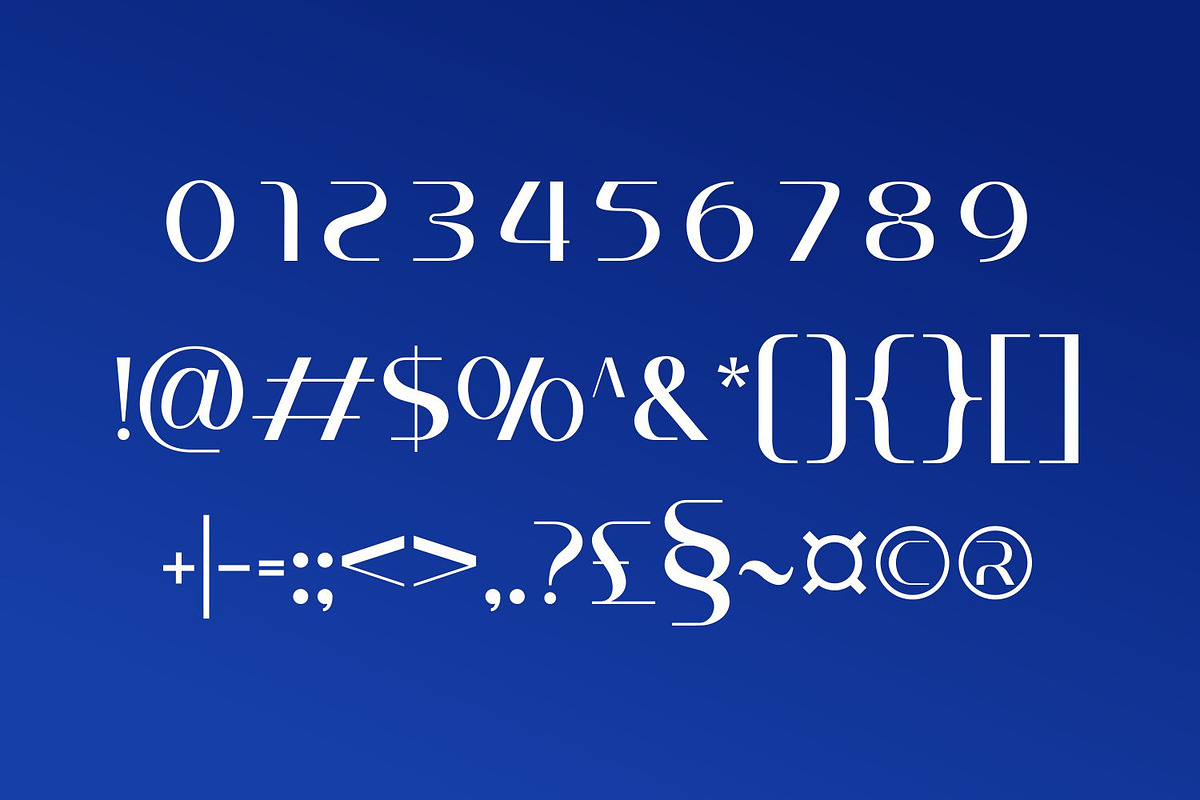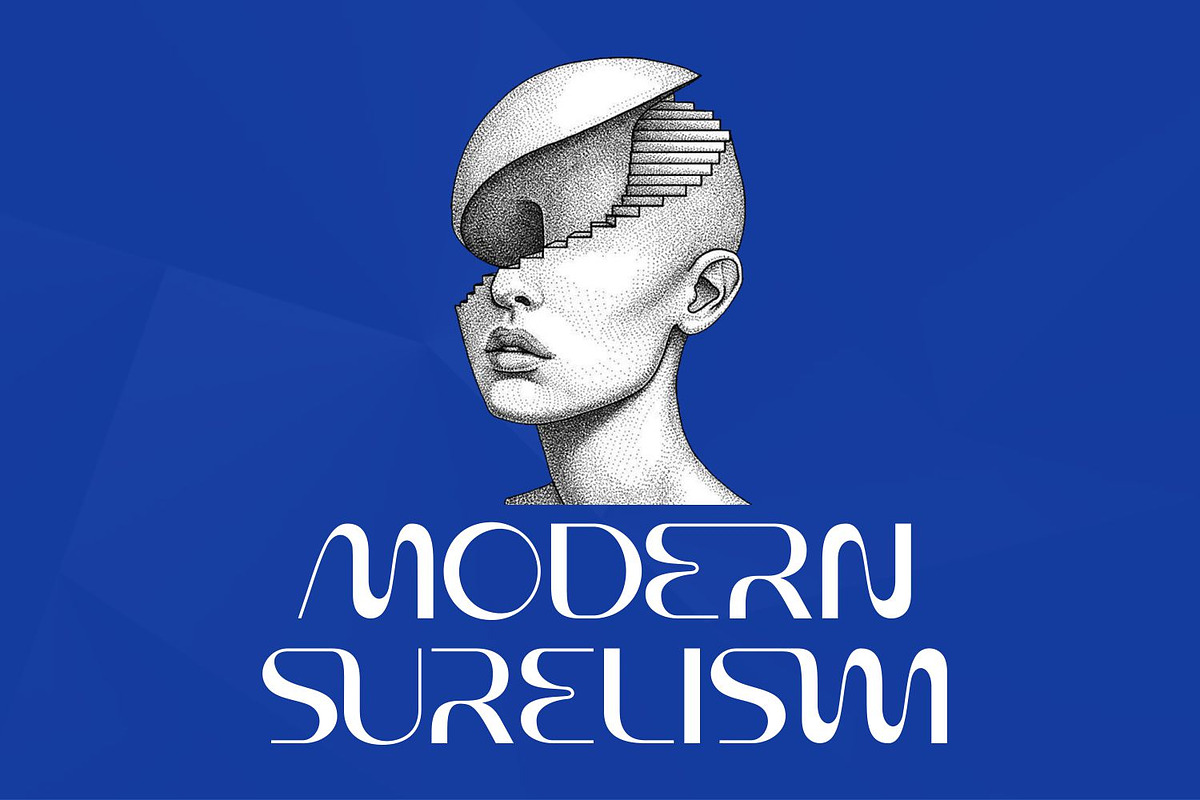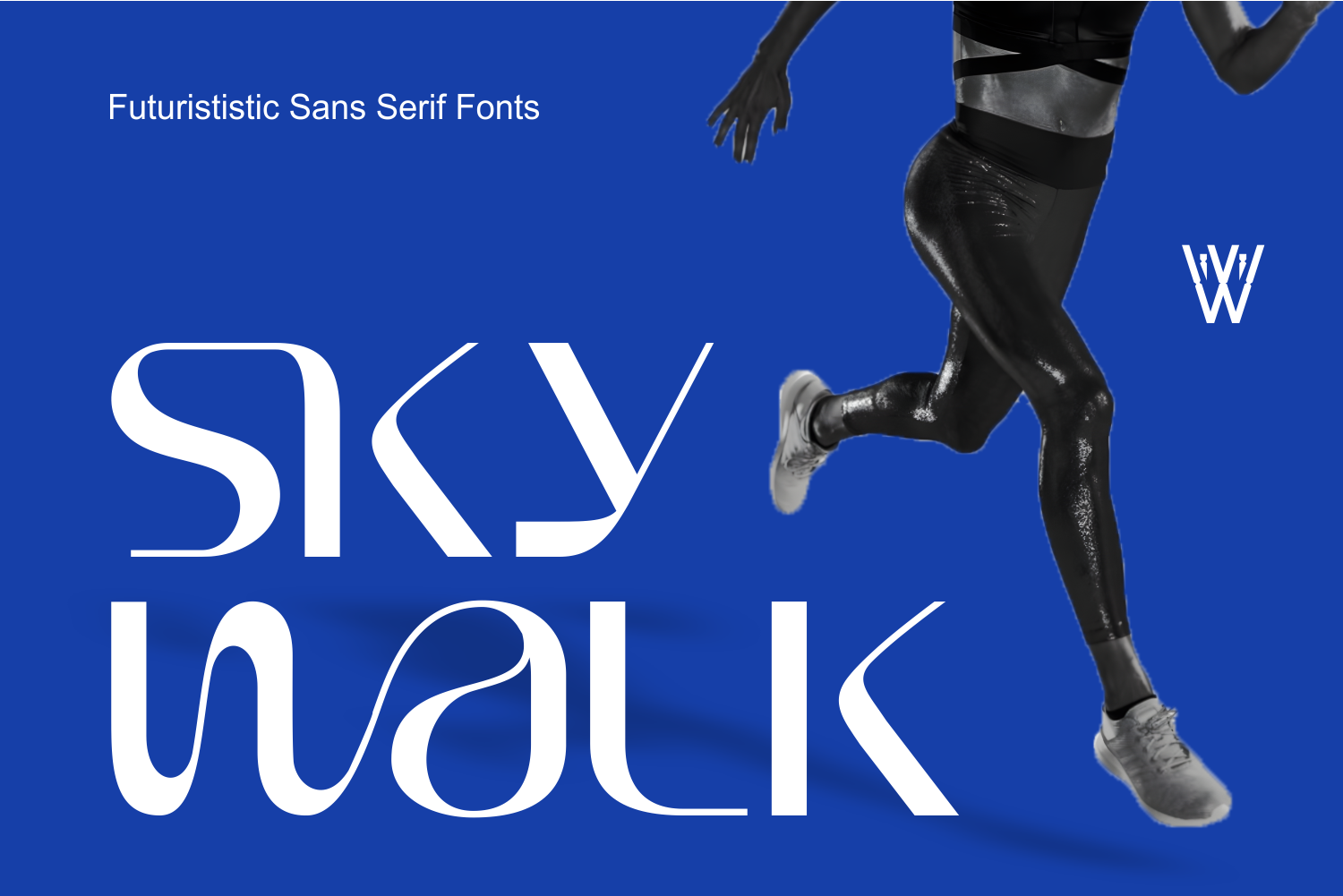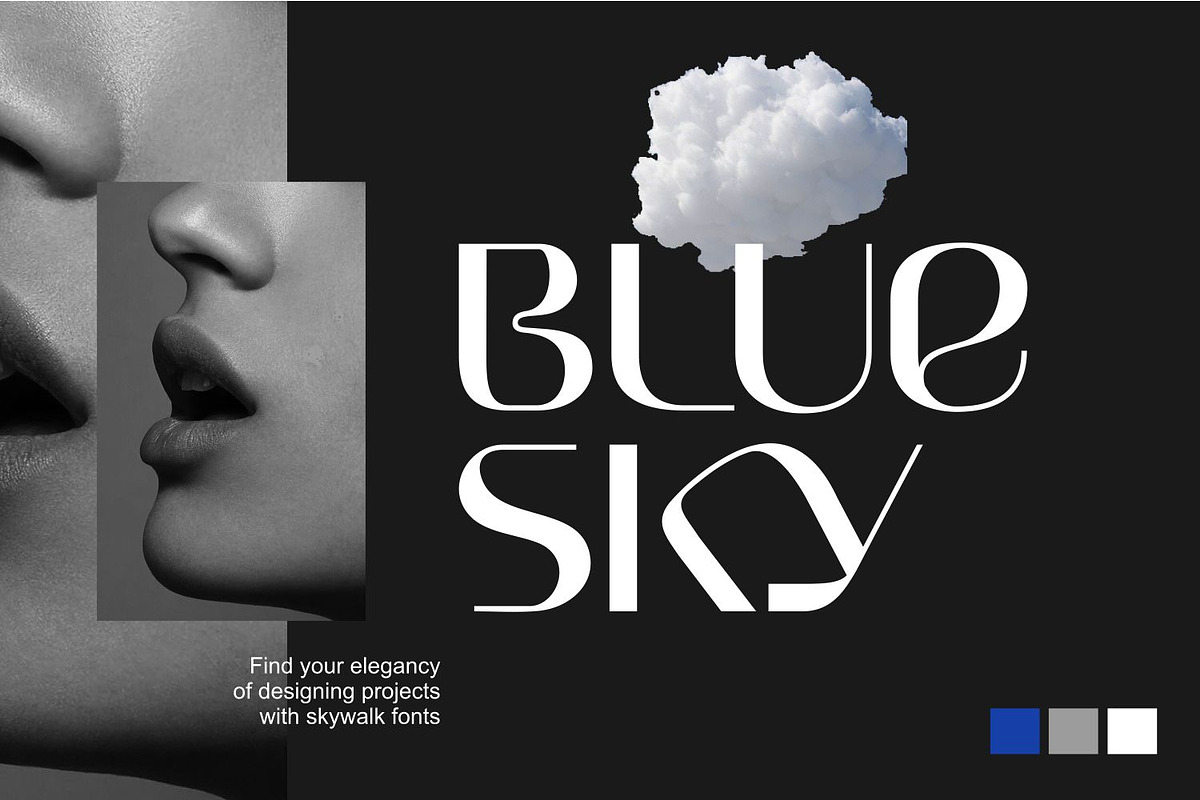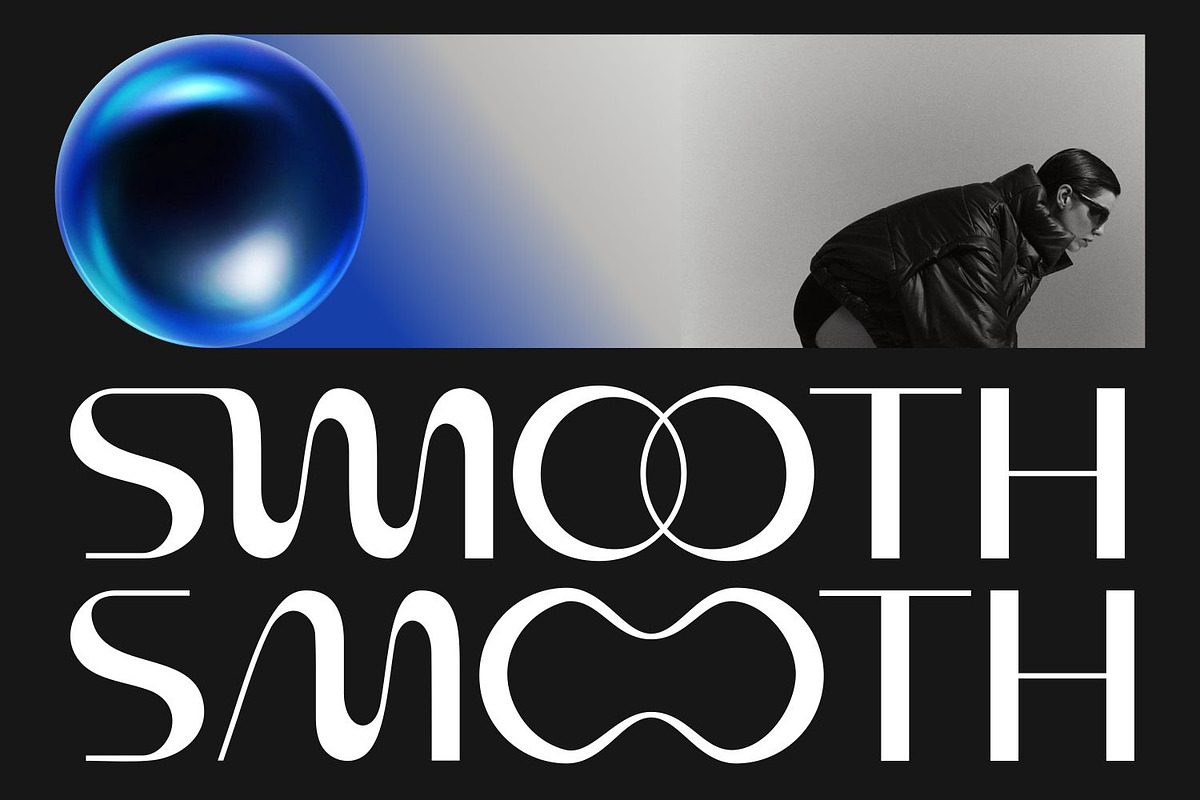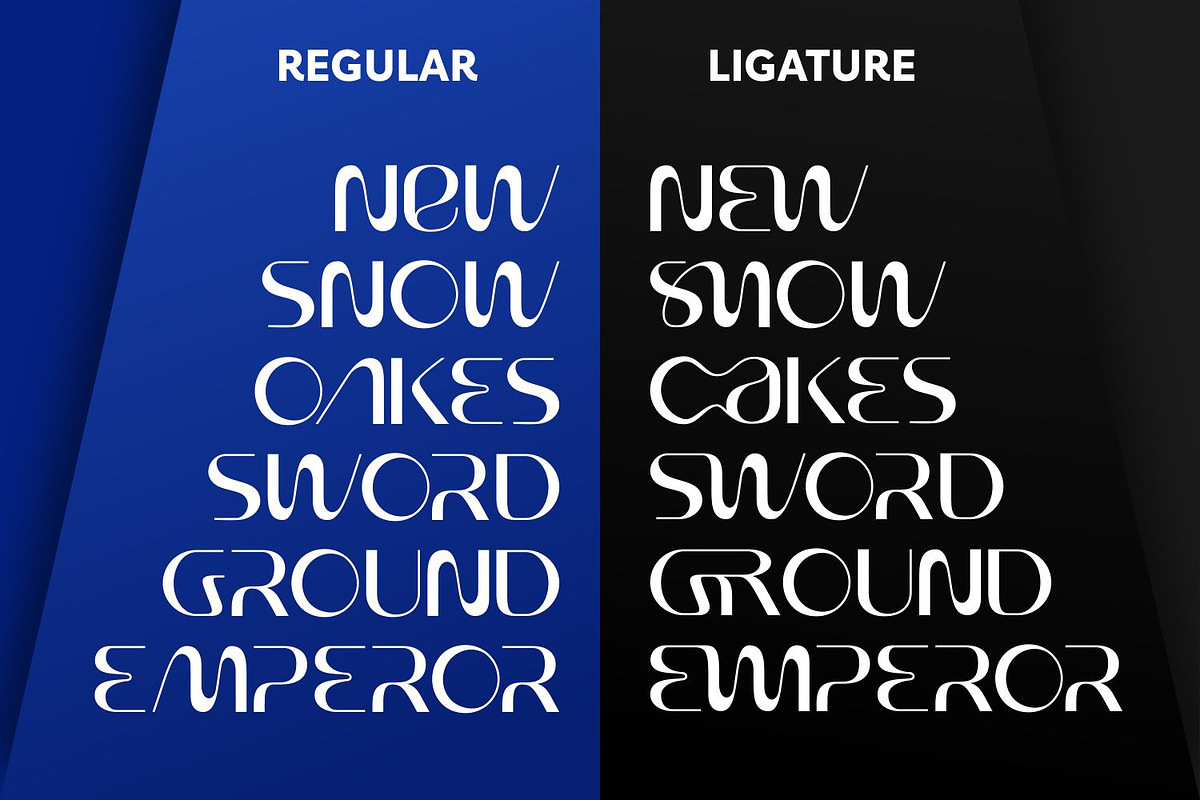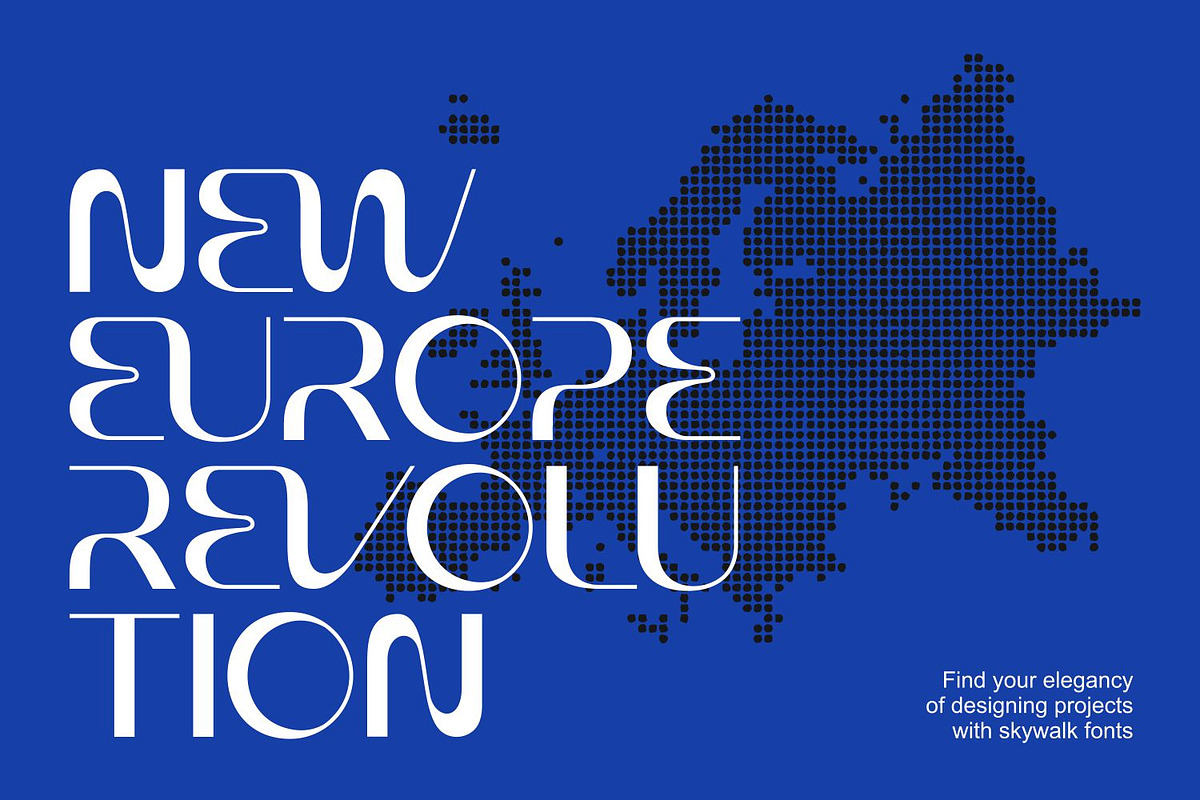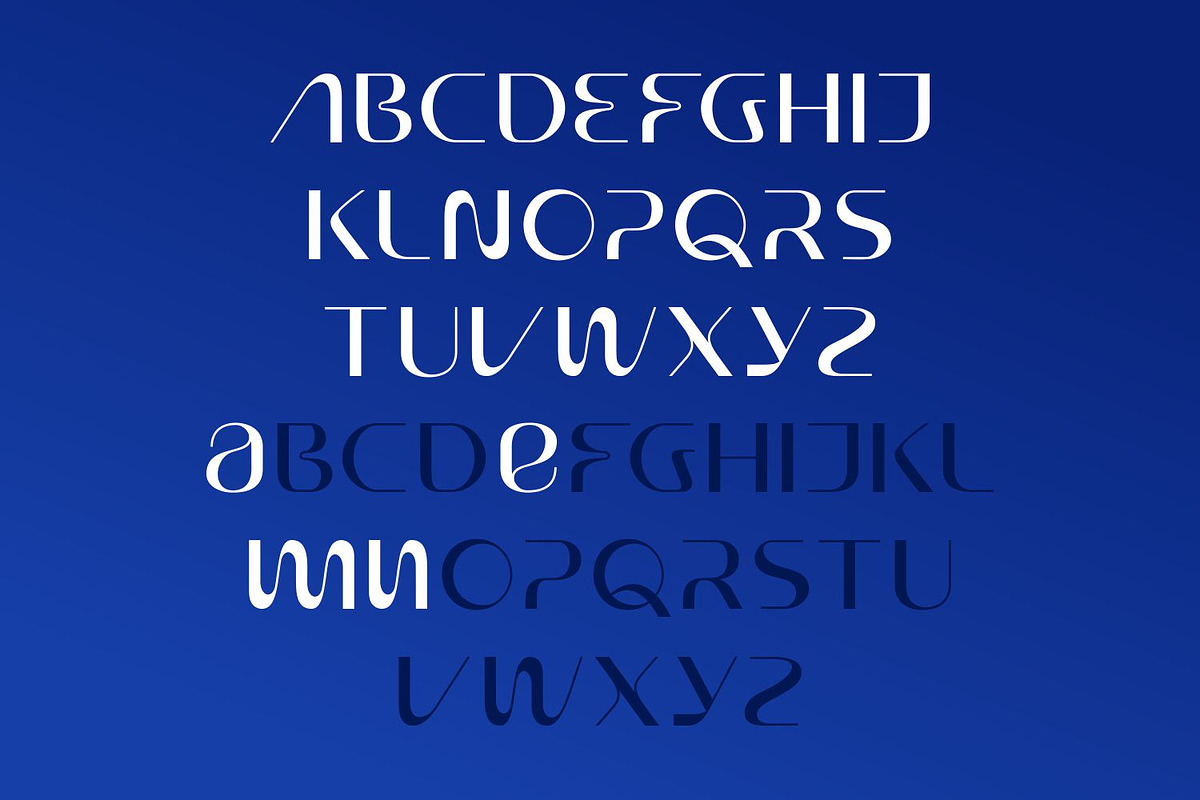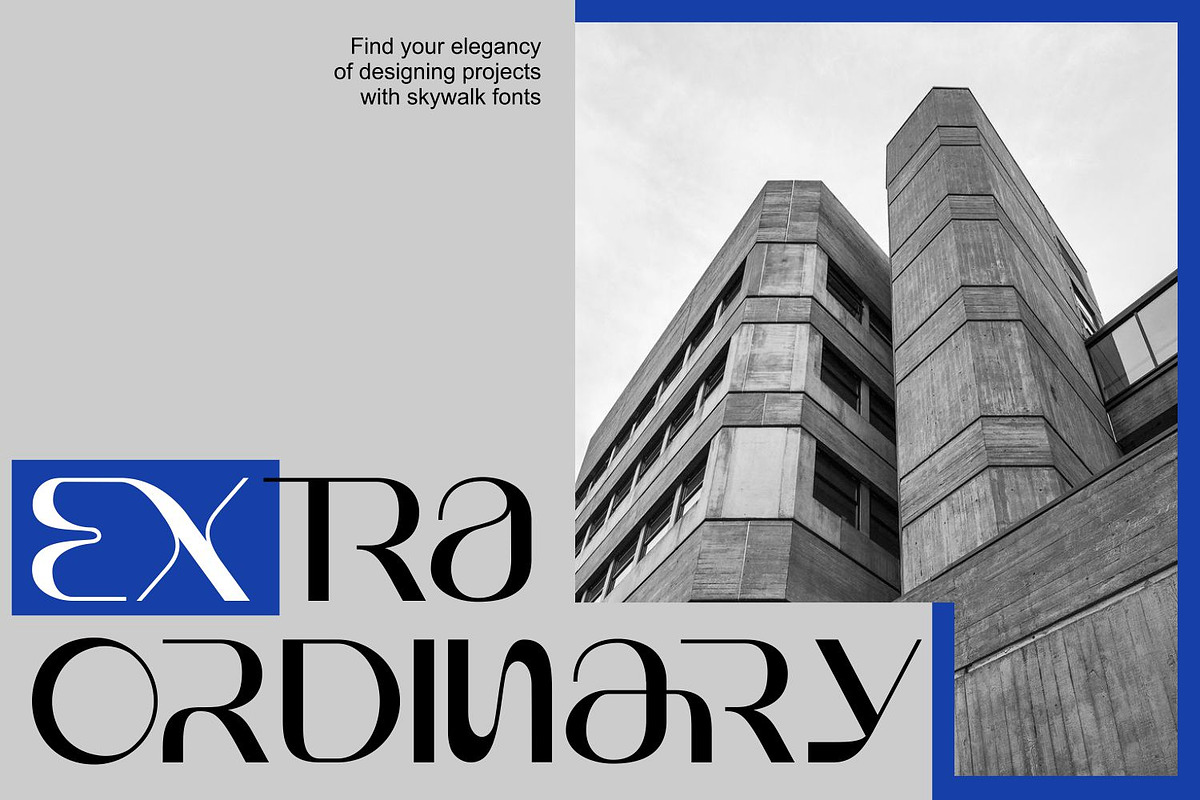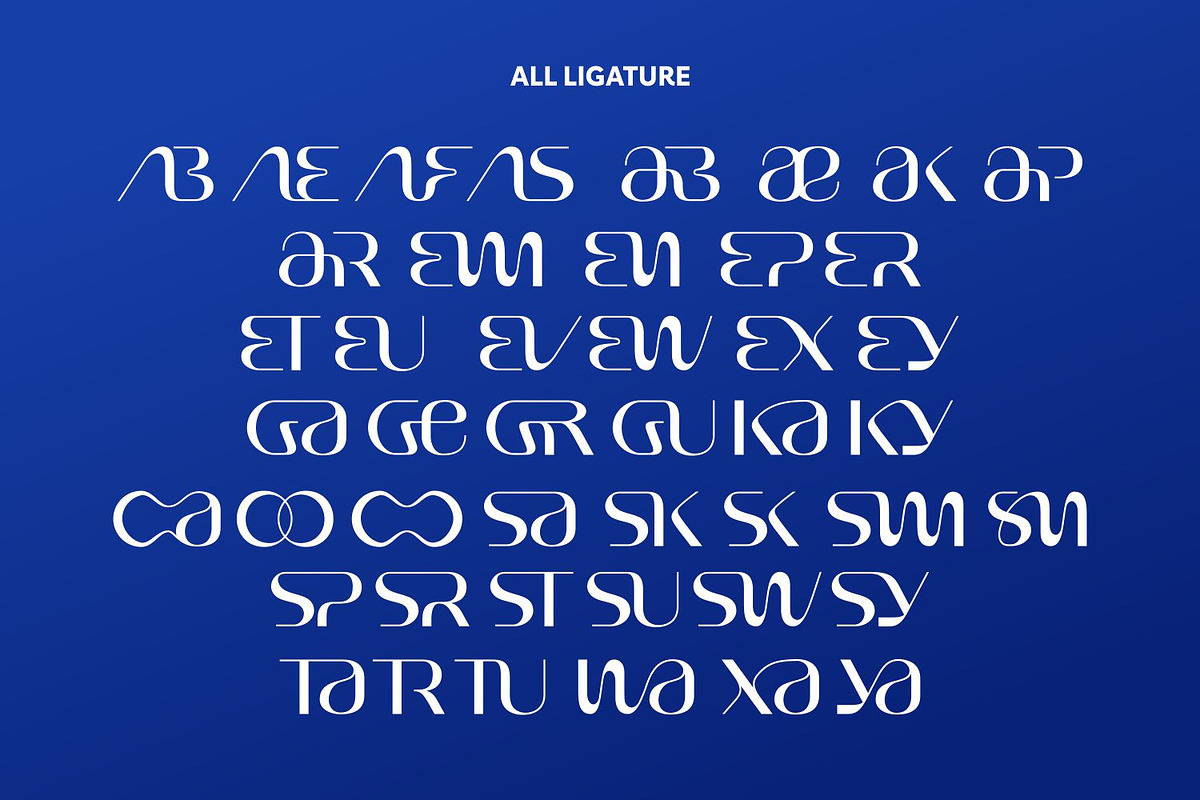
Sky Walk Sans Serif Futuristic Font
Sky Walk font has a futuristic impression and style. but the futuristic style that can be mixed and matched with the thick and thin of the unique serif font style makes it look more elegant and versatile to be used in large and small projects. this font is also inspired by the Moon walk font which has been our best selling font lately.